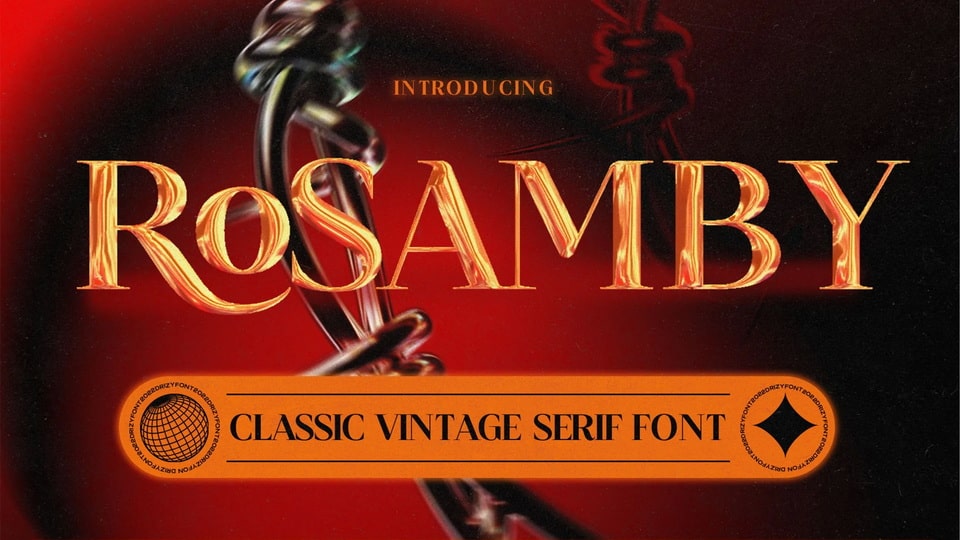
Download Rosamby font, a classic vintage typeface that offers all the basic styles you will need especially classic theme project. Its exquisite and fashionable character will instantly enhance your projects.
Designer: Drizy Studio